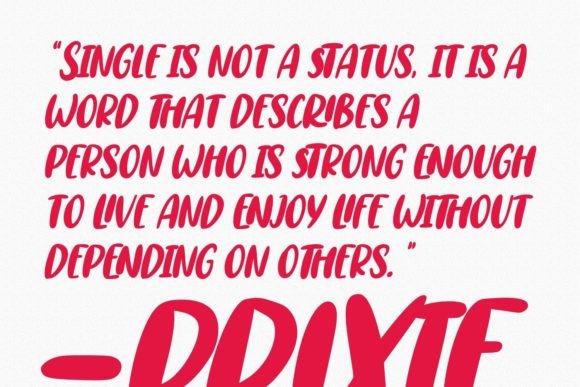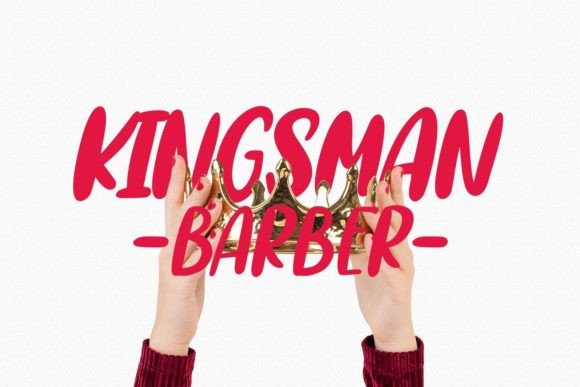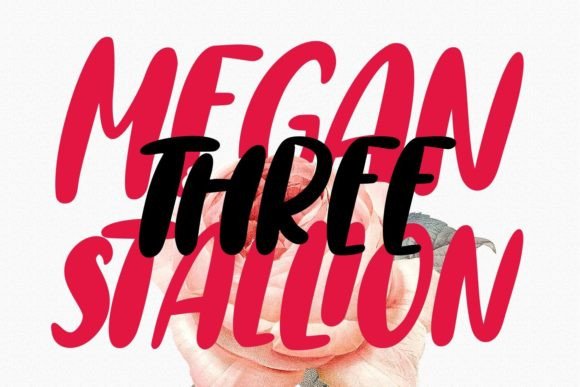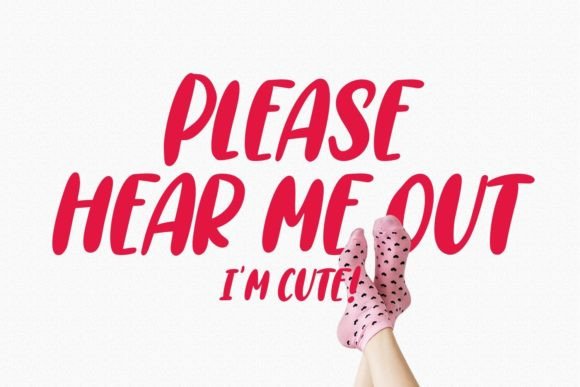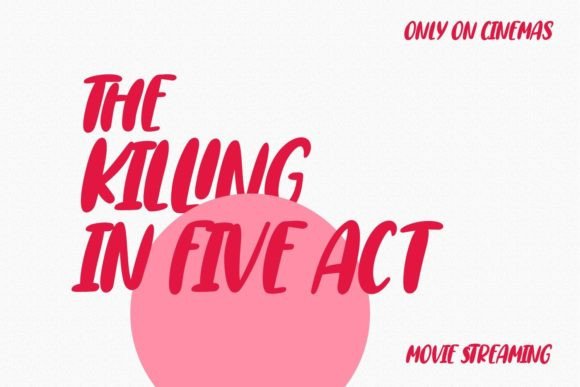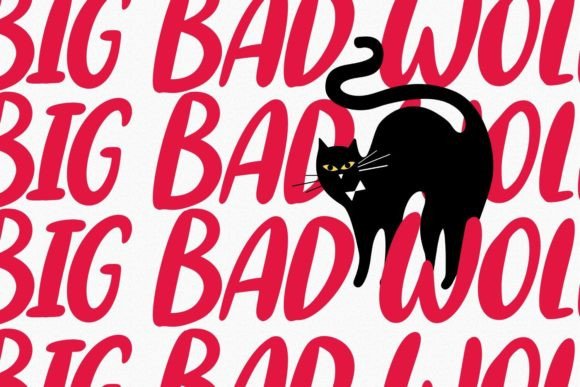
Introduction to Slamshrimp Font
Meet the Slamshrimp Font, a fun and whimsical handwritten font that’s about to become your new best friend. This free download is not only a great addition to your fonts’ library but also a game-changer for any creative endeavor. With its high-quality, transparent background, you can easily elevate your designs and make them stand out from the crowd.
Key Features of Slamshrimp Font
- Unique, hand-drawn design ideal for creative projects and artistic expressions.
- High-quality font with precise details and a distinctive look that sets it apart from other fonts.
Honest Review: Slamshrimp Font
As a designer, I’m always on the lookout for high-quality design resources to elevate my creative projects. Recently, I came across the Slamshrimp Font, and I’m excited to share my honest review with you.
- ✨ The Slamshrimp Font has a unique and quirky aesthetic that adds a touch of personality to any design project.
- ⚠️ The font may not be suitable for formal or professional designs, as its playful nature may not be taken seriously.
- ⚠️ Some users may find the font’s quirks distracting, especially in large blocks of text.
Overall, I’m impressed with the Slamshrimp Font’s creativity and versatility. While it may not be suitable for every project, it’s a fantastic addition to any designer’s toolkit. With its free download option and transparent background feature, it’s definitely worth checking out for your next creative project.
Common Use Cases for Slamshrimp Font
The Slamshrimp Font is perfect for a variety of creative projects, including posters, flyers, and social media graphics. It’s also ideal for creating presentations, documents, and other written materials that require a unique and eye-catching design.